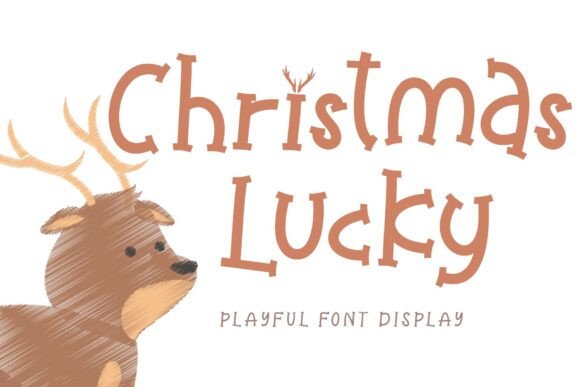
Christmas Lucky Font: The Perfect Choice for Your Holiday Designs
Are you looking for a font that captures the essence of Christmas and adds a touch of luck to your designs? Look no further than the Christmas Lucky Font. This adorable display font is perfect for creating festive and fun designs for Christmas, Easter, Halloween, and other celebrations. In this article, we’ll explore the features and benefits of the Christmas Lucky Font and how you can use it to elevate your holiday designs.
What is Christmas Lucky Font?
Christmas Lucky Font is a cute and cheerful display font that is designed to bring joy and festivity to your designs. It comes with a range of characters, including capital letters, lowercase letters, numbers, punctuation, and multilingual support. This font is perfect for use on a variety of design projects, including Christmas, Easter, banners, posters, prints, branding, stickers, logos, birthdays, parties, Halloween, comics, and cartoons.
Key Features of Christmas Lucky Font
- Capital and Lowercase Letters: The font includes both capital and lowercase letters, allowing you to create a range of designs and text styles.
- Numbers and Punctuation: The font also includes numbers and punctuation marks, making it easy to create complete and professional-looking designs.
- Multilingual Support: With multilingual support, you can use the font to create designs in multiple languages, making it perfect for global brands and designers.
- Cute and Cheerful Design: The font has a cute and cheerful design that is perfect for creating festive and fun designs for holidays and celebrations.
Benefits of Using Christmas Lucky Font
There are many benefits to using the Christmas Lucky Font in your designs. Here are a few:
- Easy to Read: The font is easy to read, even at small sizes, making it perfect for use on a variety of design projects.
- Highly Versatile: The font is highly versatile and can be used on a range of design projects, from Christmas and Easter designs to Halloween and birthday designs.
- Unique and Eye-Catching: The font has a unique and eye-catching design that will help your designs stand out from the crowd.
- Supports Multiple Languages: With multilingual support, you can use the font to create designs in multiple languages, making it perfect for global brands and designers.
How to Use Christmas Lucky Font
Design Ideas Using Christmas Lucky Font
Here are a few design ideas to get you started:
- Christmas Cards and Invitations: Use the Christmas Lucky Font to create festive and fun Christmas cards and invitations.
- Easter Banners and Posters: Use the font to create colorful and eye-catching Easter banners and posters.
- Halloween Stickers and Logos: Use the font to create spooky and fun Halloween stickers and logos.
- Birthday Party Decorations: Use the font to create festive and fun birthday party decorations, such as banners and garlands.
In conclusion, the Christmas Lucky Font is a cute and cheerful display font that is perfect for creating festive and fun designs for holidays and celebrations. With its range of characters, multilingual support, and highly versatile design, this font is perfect for use on a variety of design projects. Whether you’re creating Christmas cards, Easter banners, Halloween stickers, or birthday party decorations, the Christmas Lucky Font is the perfect choice.